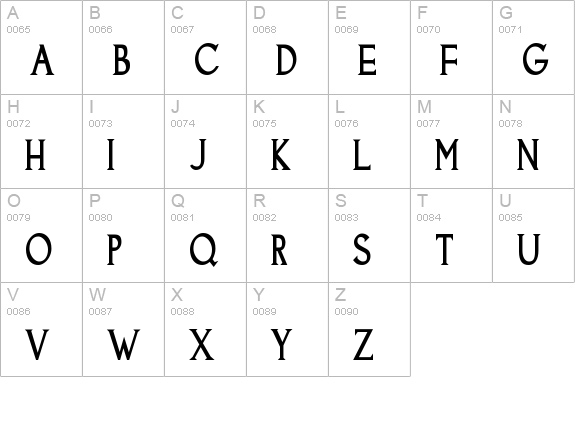
TR Goodfish Bold Font Details
TR Goodfish Bold is a strong, high-contrast variant in the TR typeface family \xE2\x80\x94 well suited to headlines, attention-grabbing titles, and strong calls-to-action.
TR Goodfish Bold is a striking and modern display font that exudes confidence and strength. Its bold and clean lines make it perfect for headlines, logos, and branding projects that require a strong and professional look. The geometric shapes and sharp edges of this font give it a contemporary and edgy feel, making it a versatile choice for various design applications. What sets TR Goodfish Bold apart is its unique blend of boldness and elegance, making it suitable for both serious and creative projects. Whether you are designing a sleek corporate presentation or a cutting-edge advertising campaign, this font will make your text stand out and leave a lasting impression on your audience. The best part is that TR Goodfish Bold is available for free download at FontsMarket.com. This means you can easily access this high-quality font to elevate your design projects without any cost. Don't miss out on this opportunity to add a touch of sophistication and modernity to your designs with TR Goodfish Bold. Download it now and take your projects to the next level.